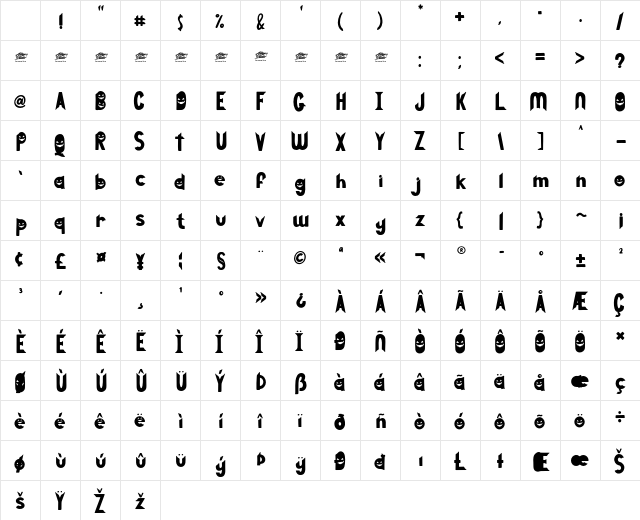
Complete Pumpkin Face Display Regular glyph index. Displaying only characters natively supported by Pumpkin Face Display Regular font.
Pumpkin Face Display is built around its visual character rather than neutral utility - its distinctive forms are designed to make an impression at display sizes.
Font Pairing: Pair with a clean neutral sans-serif for body copy to let Pumpkin Face Display's character lead without overwhelming the composition.
Pro Tip: Use Pumpkin Face Display exclusively at display sizes - it was designed to be seen, not read at length. Let a neutral companion handle body copy.